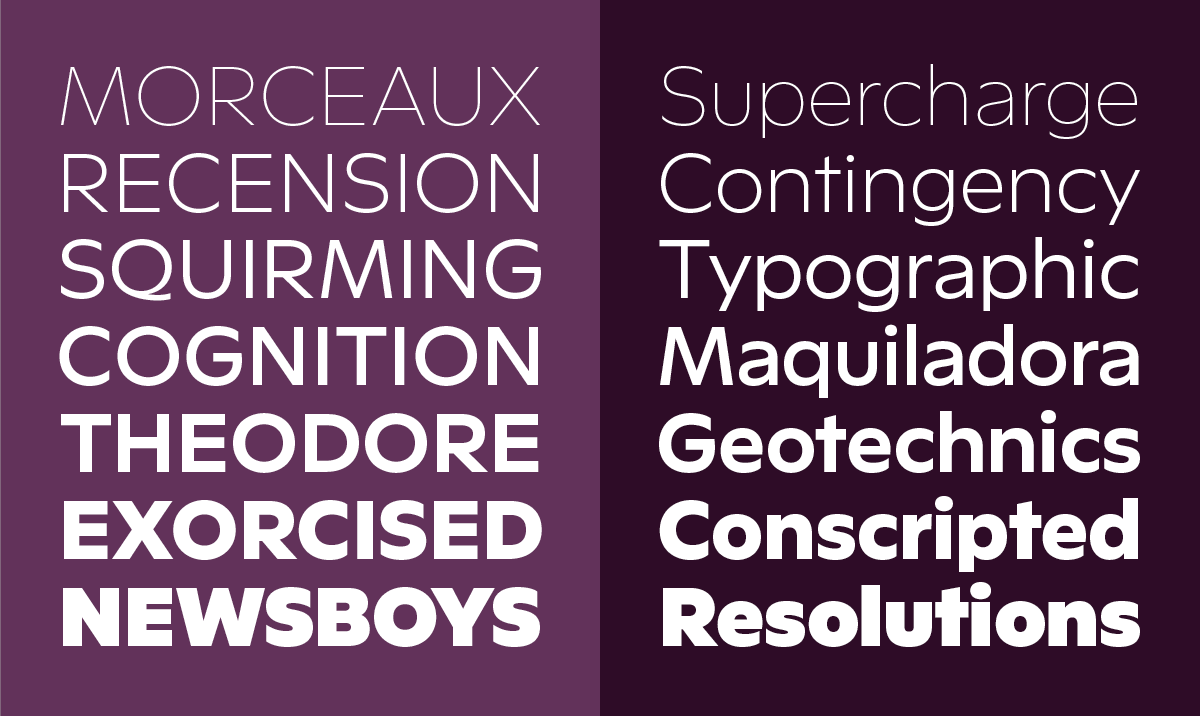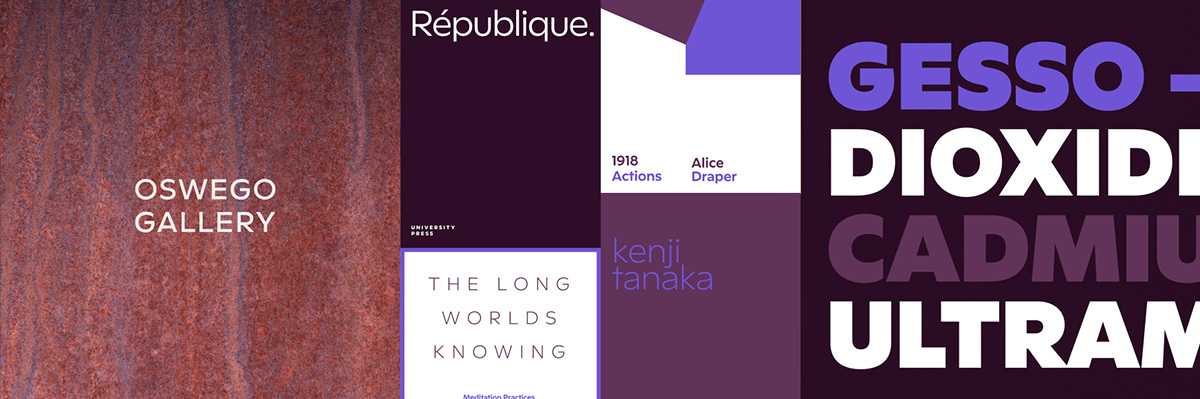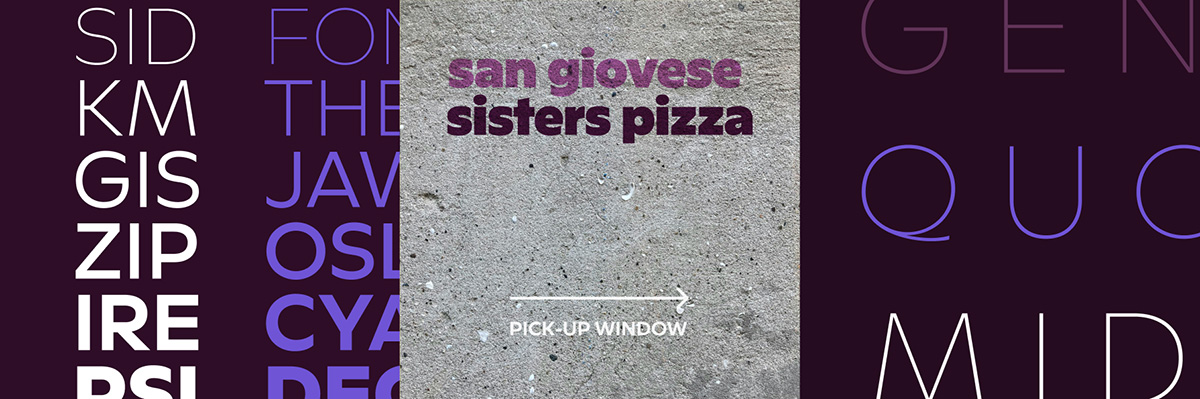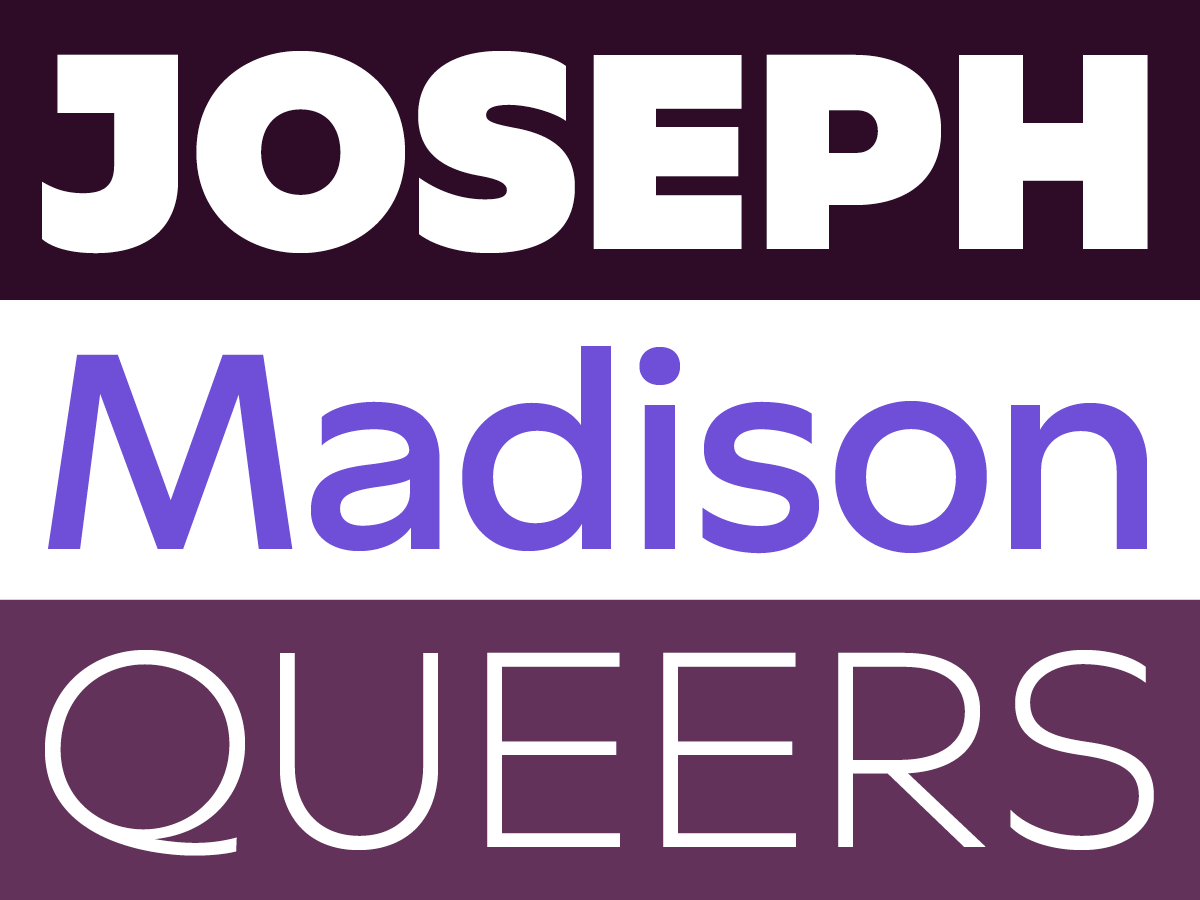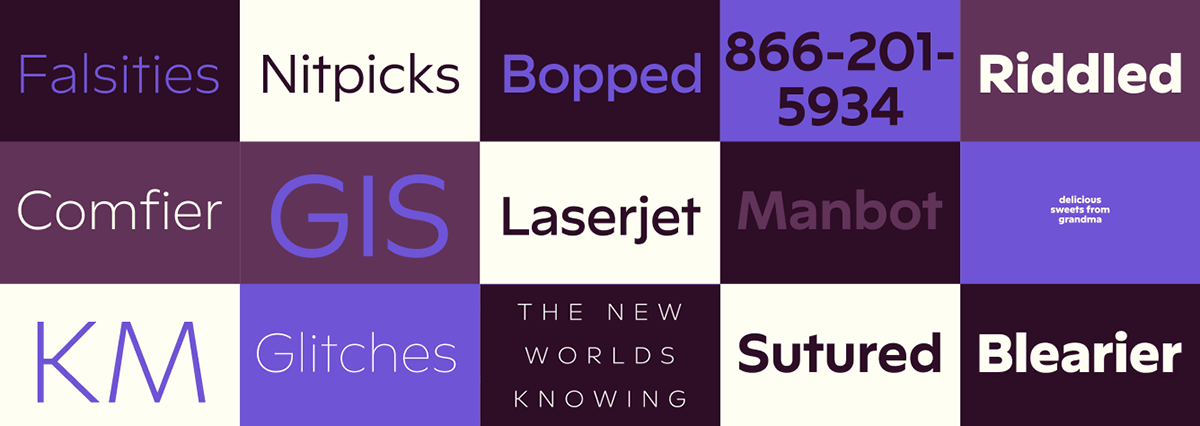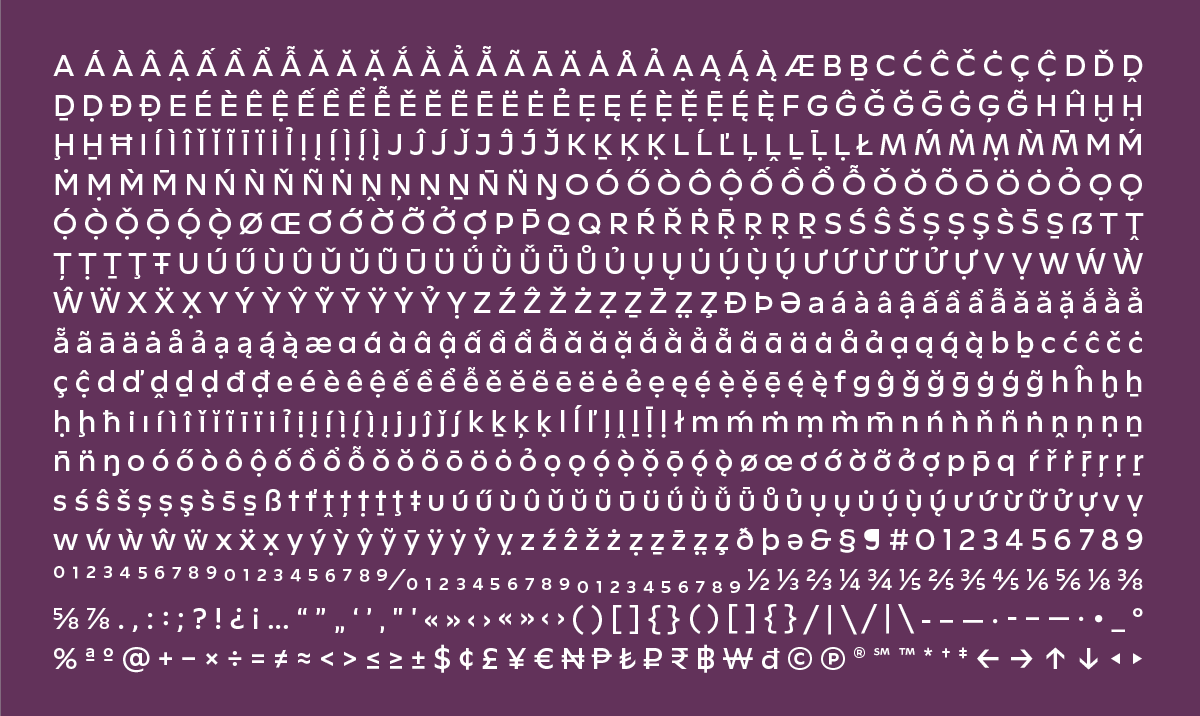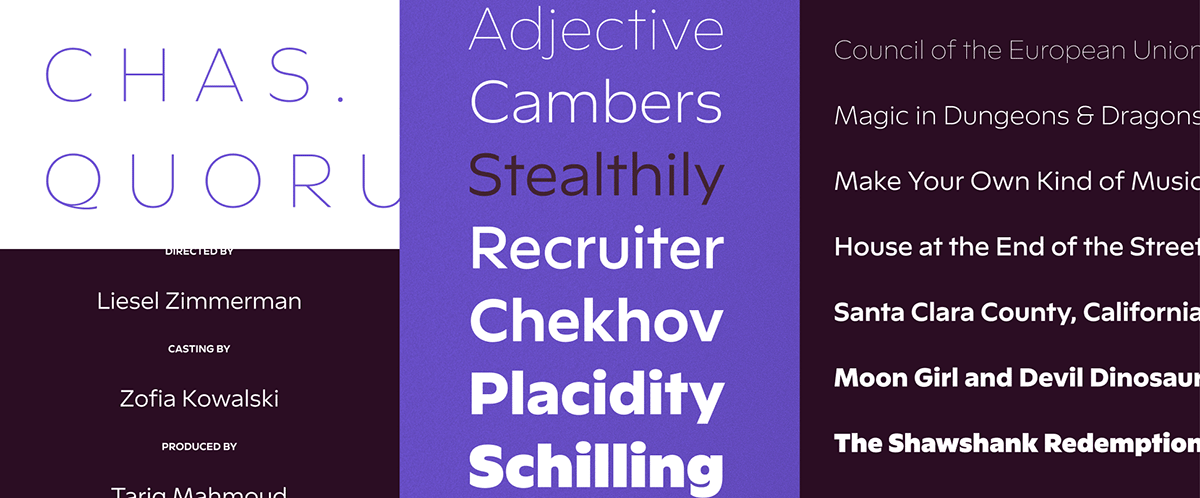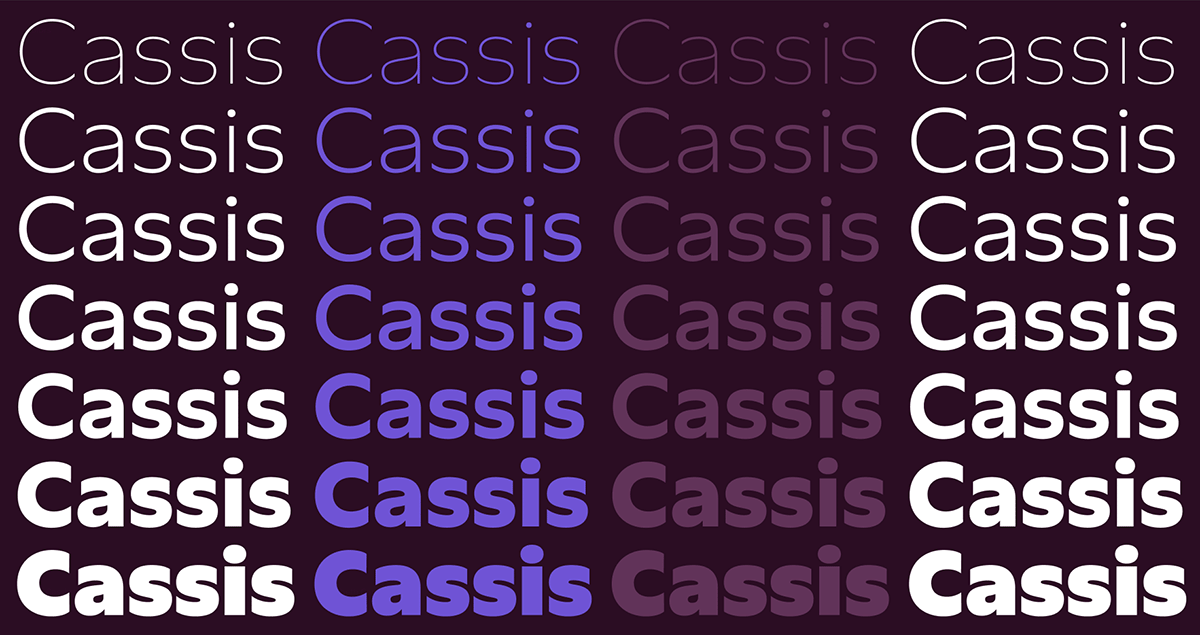
Typeface of the Month: Cassis
By Frere-Jones Type
Cassis is a generous, soulful sansserif with more interest in personality than perfection; a sharp and generously proportioned typeface that projects an affable confidence. It draws from geometric logic and historical precedent without being limited by either: Swelling curves, reaching terminals, and a teetering balance of stroke weights infuse its geometric structure with plenty of flavor. Cassis is designed to offer compelling density at larger sizes.
Designed by Frere-Jones Type Senior Designer Nina Stössinger, the first versions of Cassis date back to 2014, and its development traces Nina’s own journey from their native Switzerland to New York City. Informed by early- through midcentury lettering in public space spotted in Switzerland, Belgium, and the United States, Cassis draws inspiration from both sides of the Atlantic, infusing European roots with American energy.
A powerful voice for branding, identity, and titling work, the Cassis family contains seven weights, from the spare Thin through the forceful Black. All styles support over 200 languages, covering all major languages in the Latin alphabet in Western, Central, and Eastern Europe; North, Central, and South America; and Vietnam.
Foundry: Frere-Jones Type
Designer: Nina Stössinger
Styles / widths / weights: 7 weights (Thin, XLight, Light, Regular, Medium, Bold, Black)